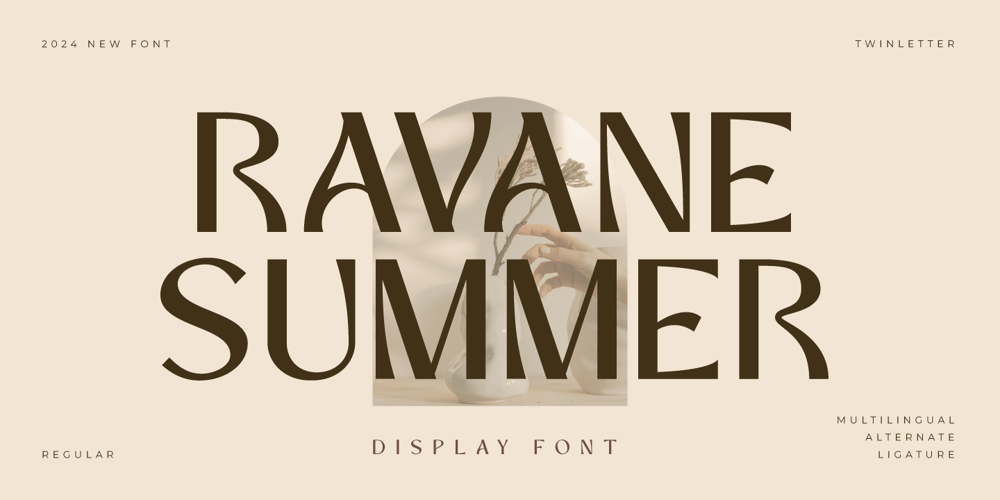
Ravane Summer
Ravane Summer font
Ravane Summer Font Family was designed by Rozikan and published by Twinletter. Ravane Summer contains 1 styles and family package options. Discover Ravane Summer, a display font that captures the essence of bold creativity and modern design. Perfectly suited for projects that need a striking and dynamic touch, Ravane Summer stands out with its unique character and flair. This font is your ultimate choice for branding, headlines, posters, and social media graphics. The bold lines and distinctive shapes make Ravane Summer an indispensable tool for designers who want their work to leave a lasting impression. With Ravane Summer, every project becomes an opportunity to showcase your innovative spirit. Dive into the world of Ravane Summer and transform your creative visions into reality.